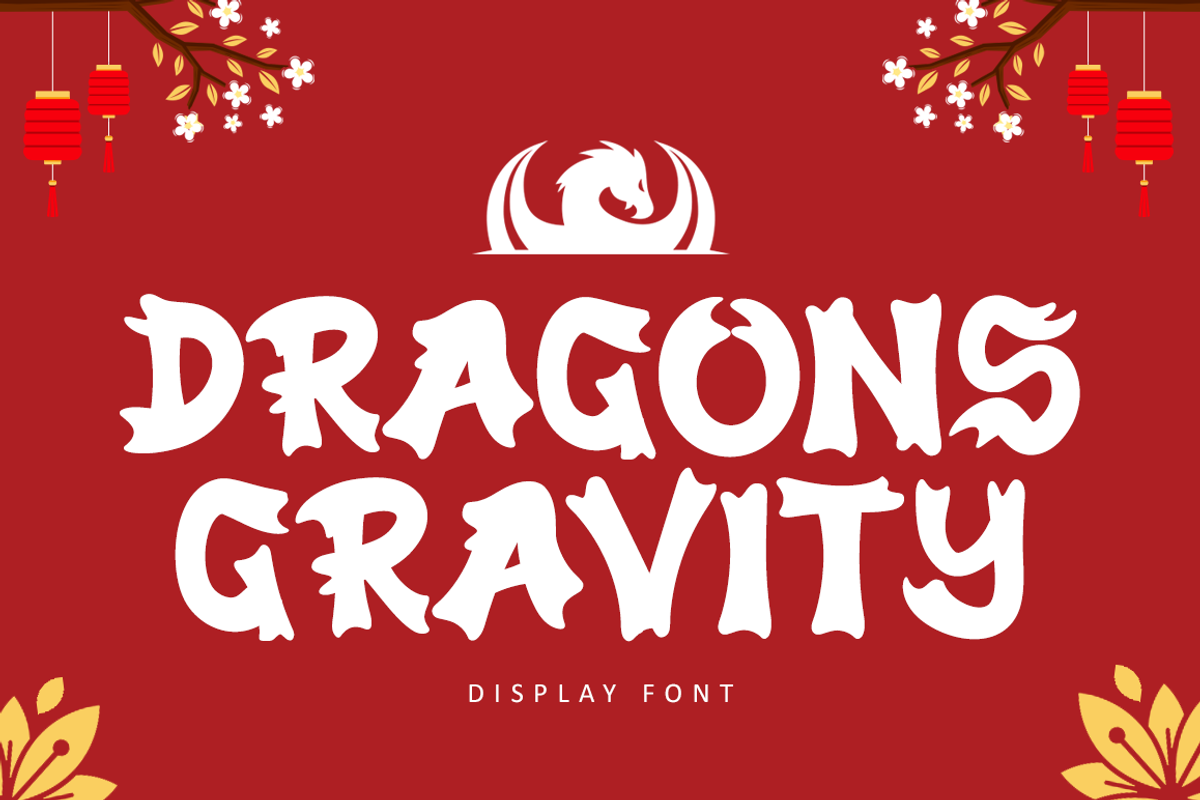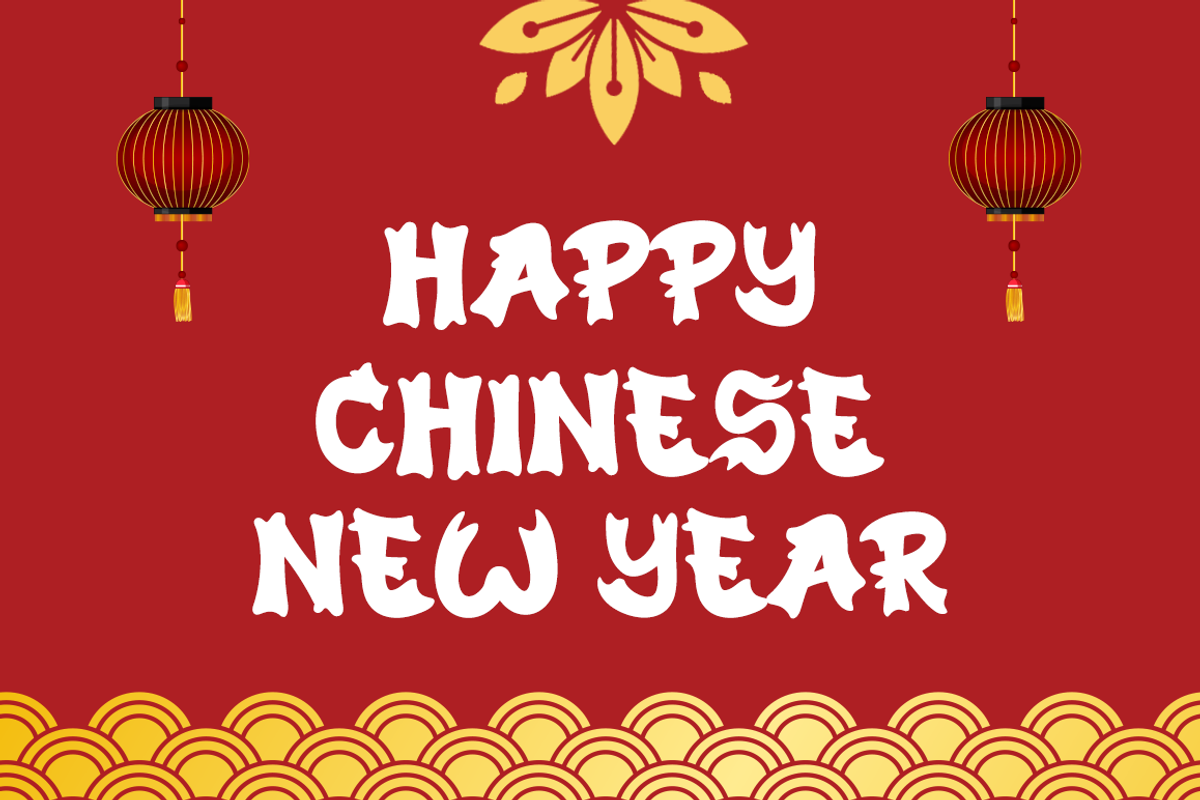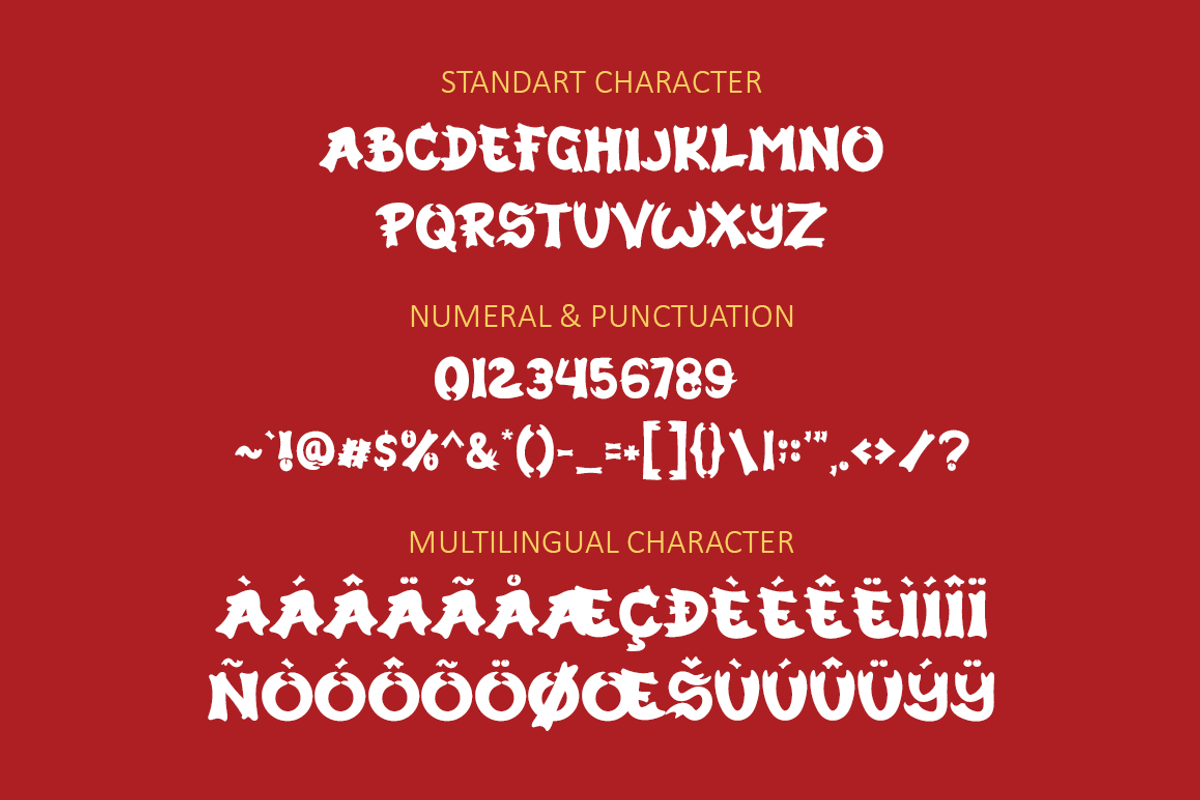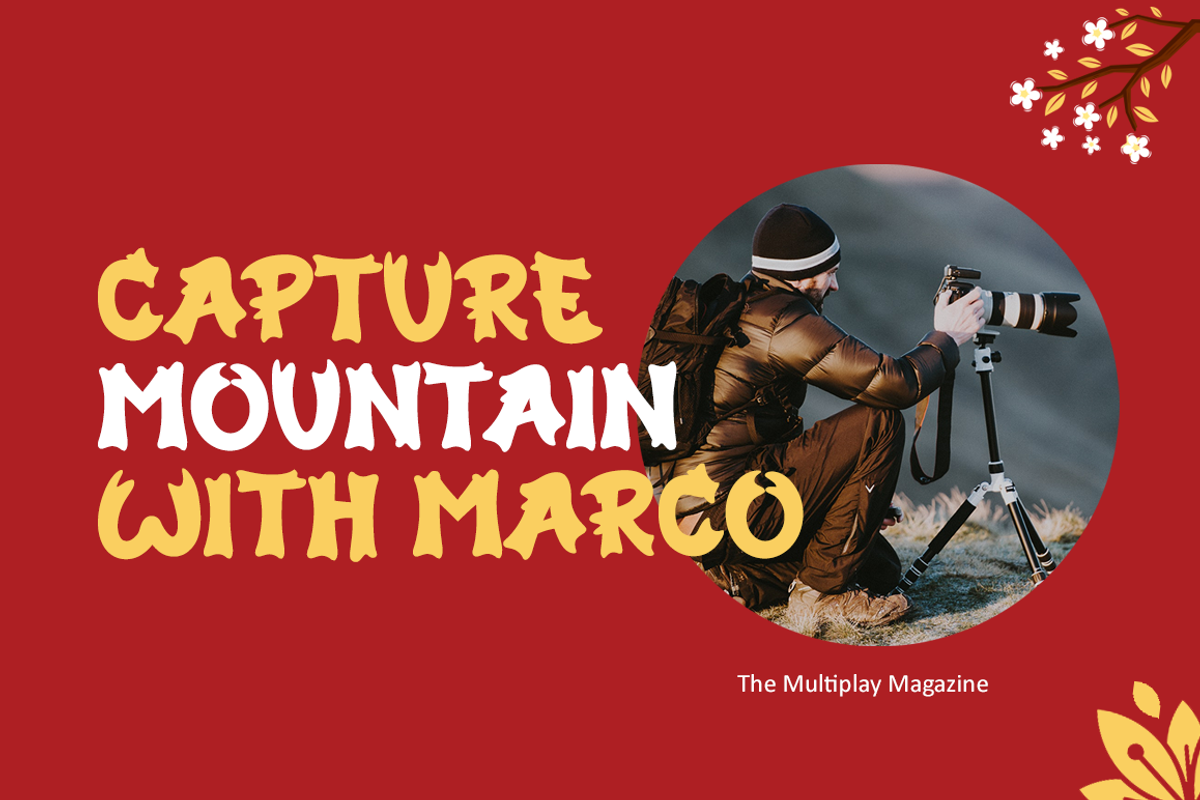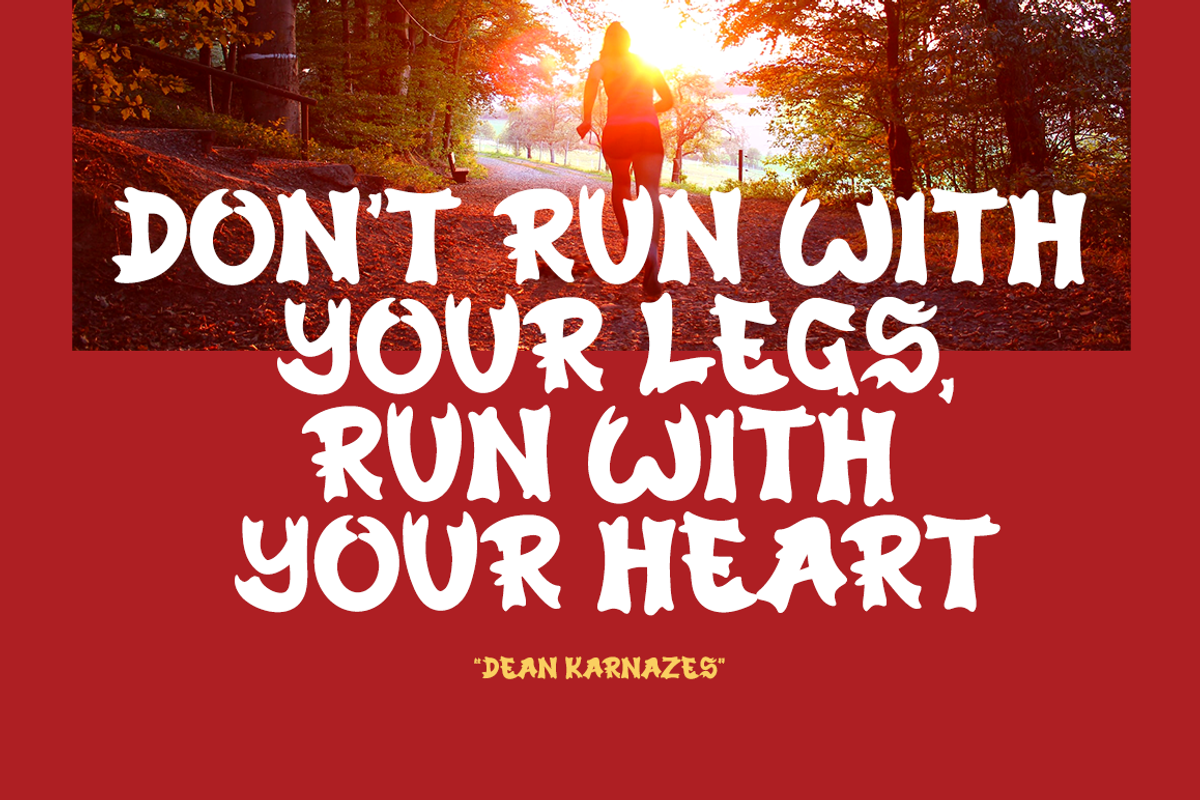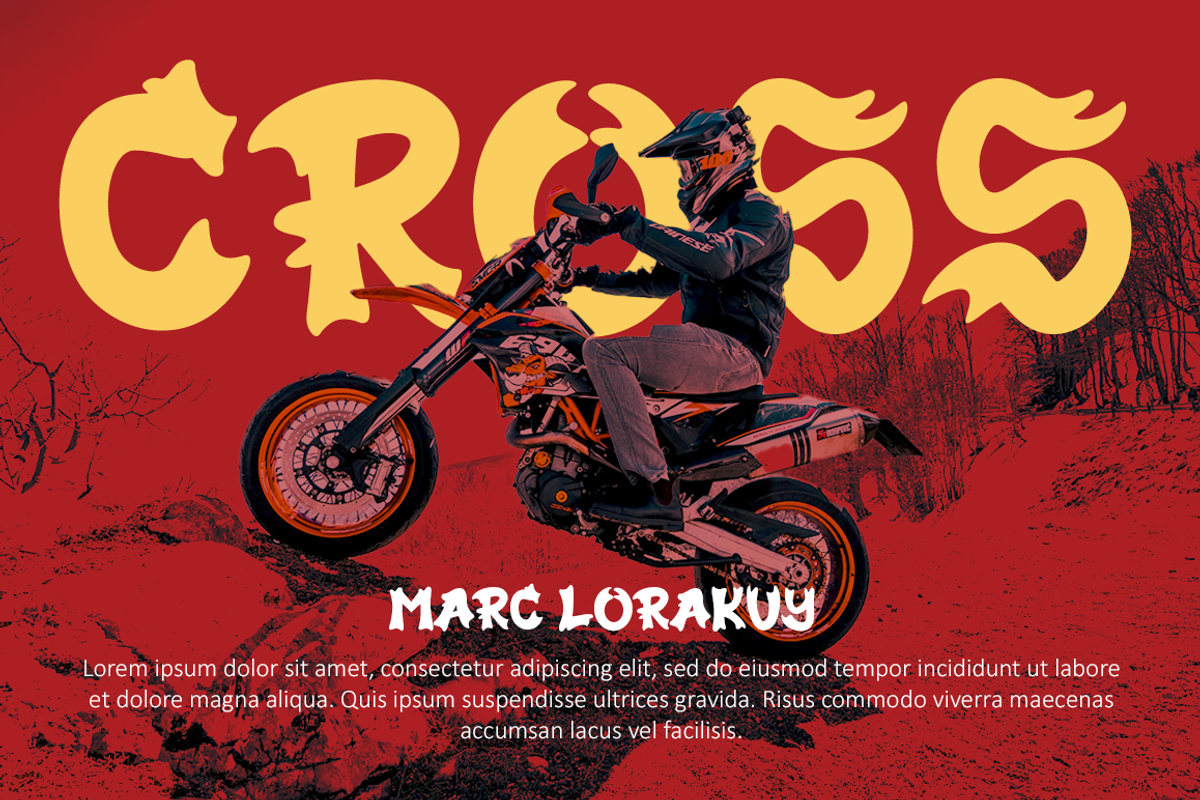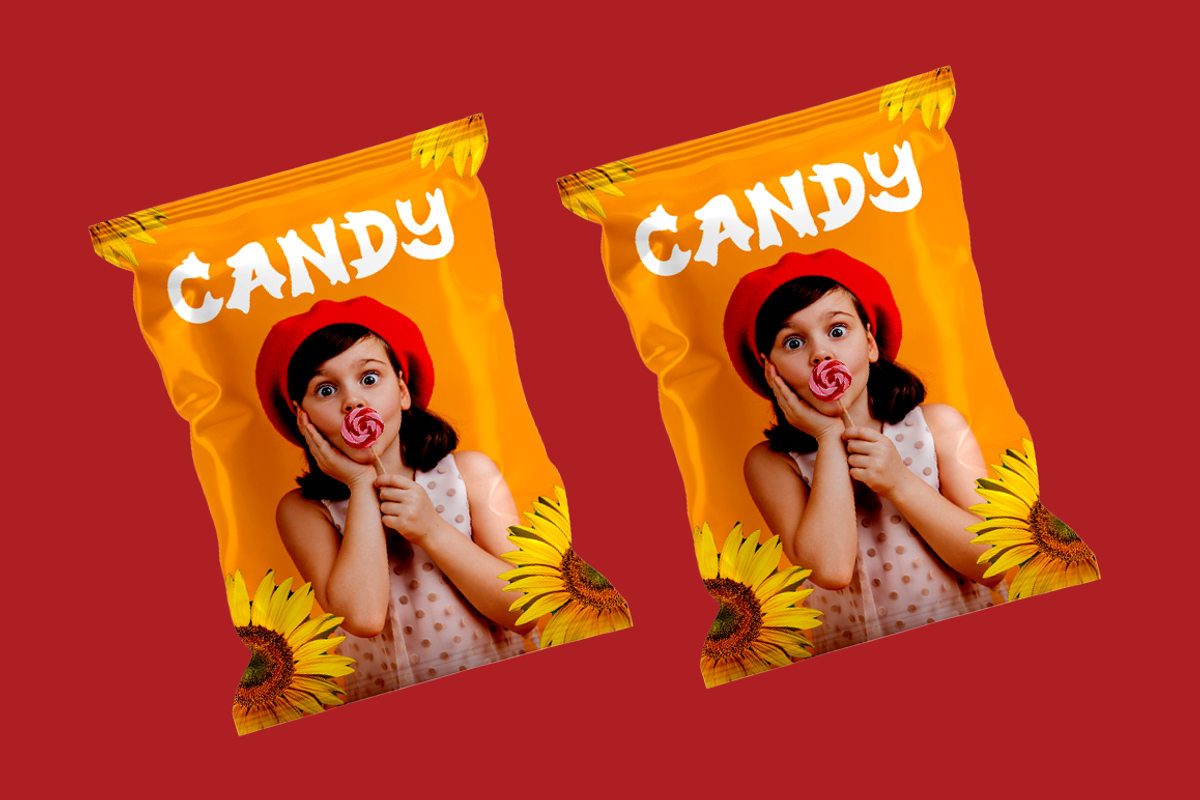
Dragons Gravity - Display Font
Hello, Happy to share our new fonts "Dragons Gravity" is a display font mix with a chinese color, consept like a dragons shape. It is ideal for Chinese gift, cards or invitation, film layout motorcycle, branding, quote, more product designs with your best styled.
Features : Uppercase and lowercase, Numbers, Punctuation, Multilingual Accent,